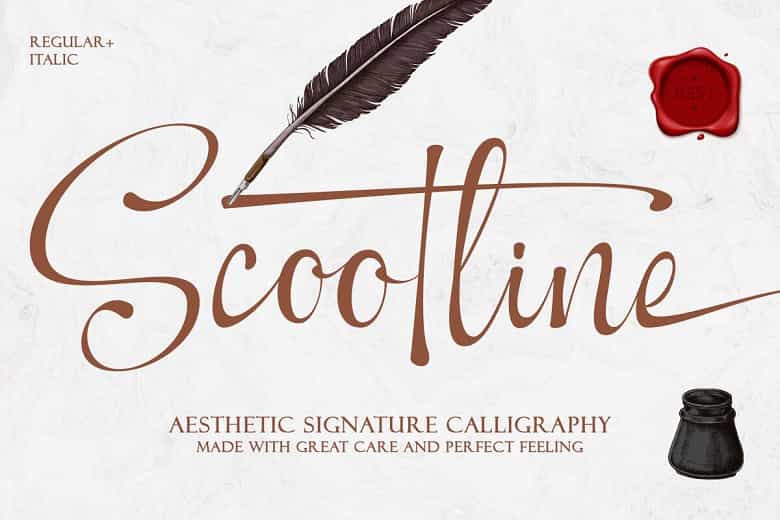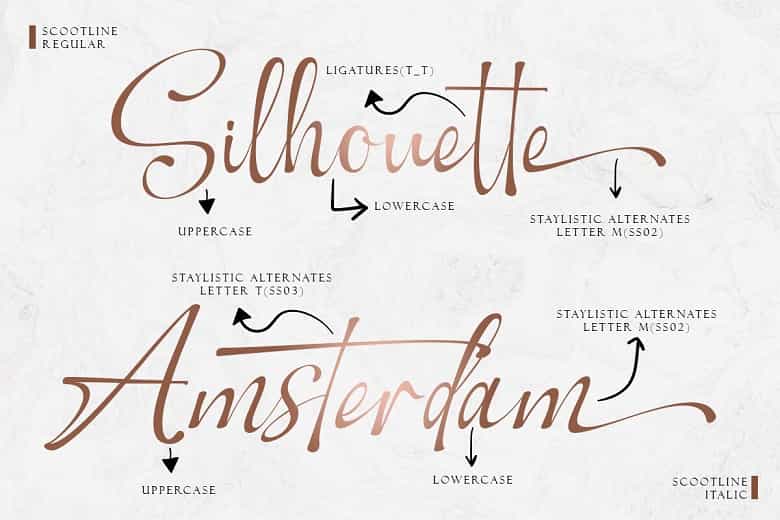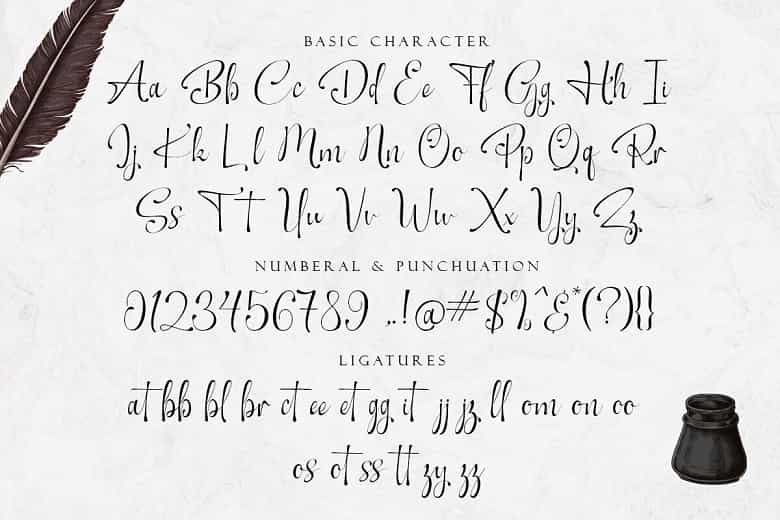
Scootline is a pretty modern signature calligraphy font that has a casual sexy look. This is good for branding use, for weddings, invitations and cards, signature and can even be used in a red wine label. Scootline contains a complete character set of beautiful uppercase and lowercase letters, as well as numerals, an extensive set of punctuation marks, and stylistic ligatures.